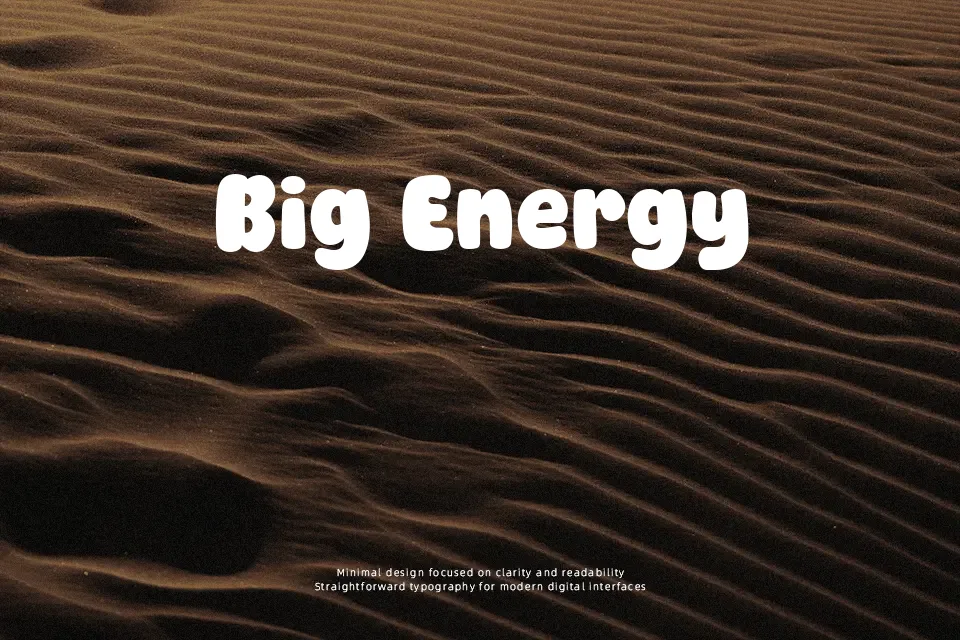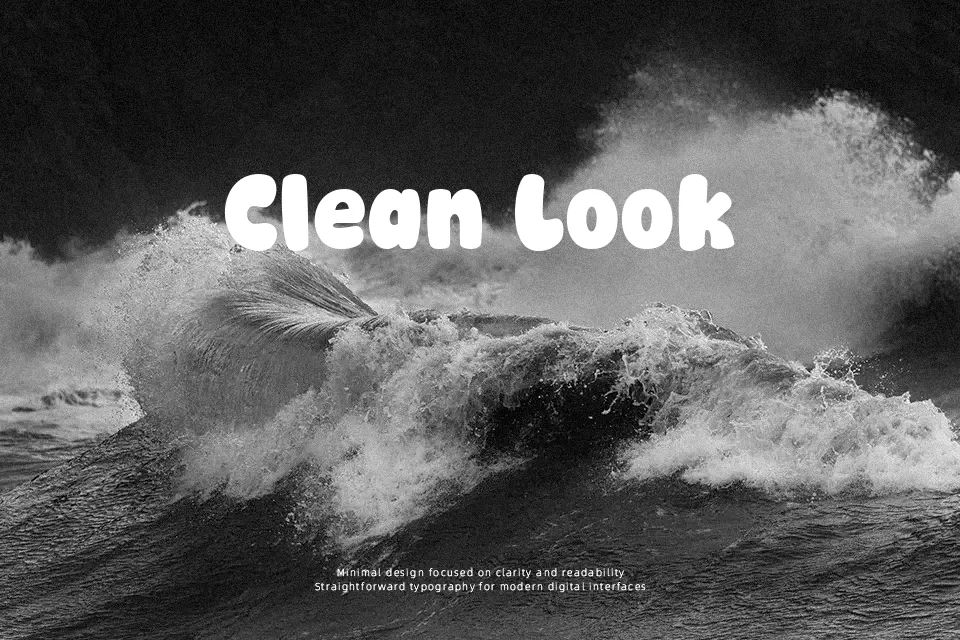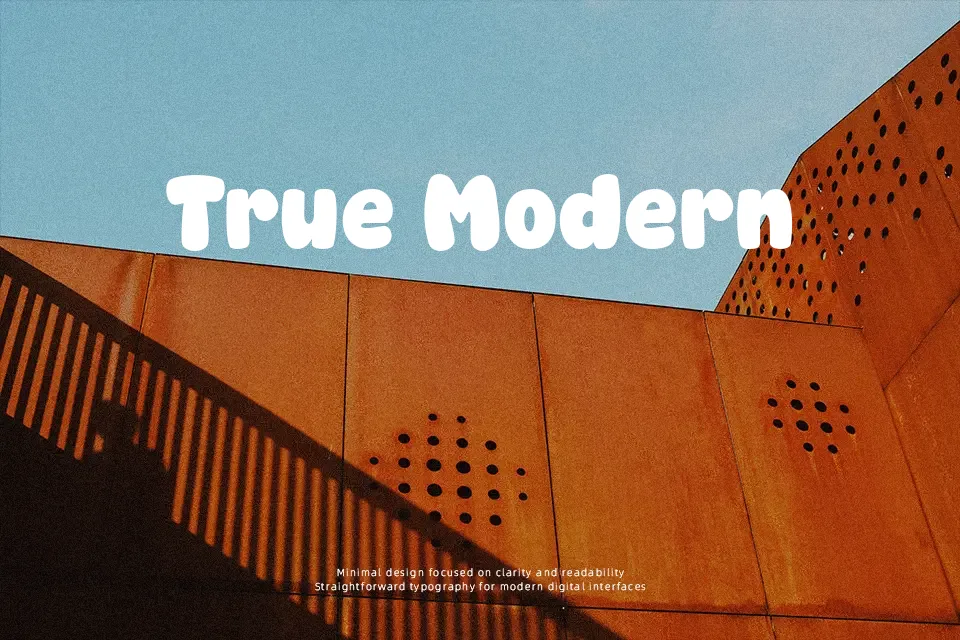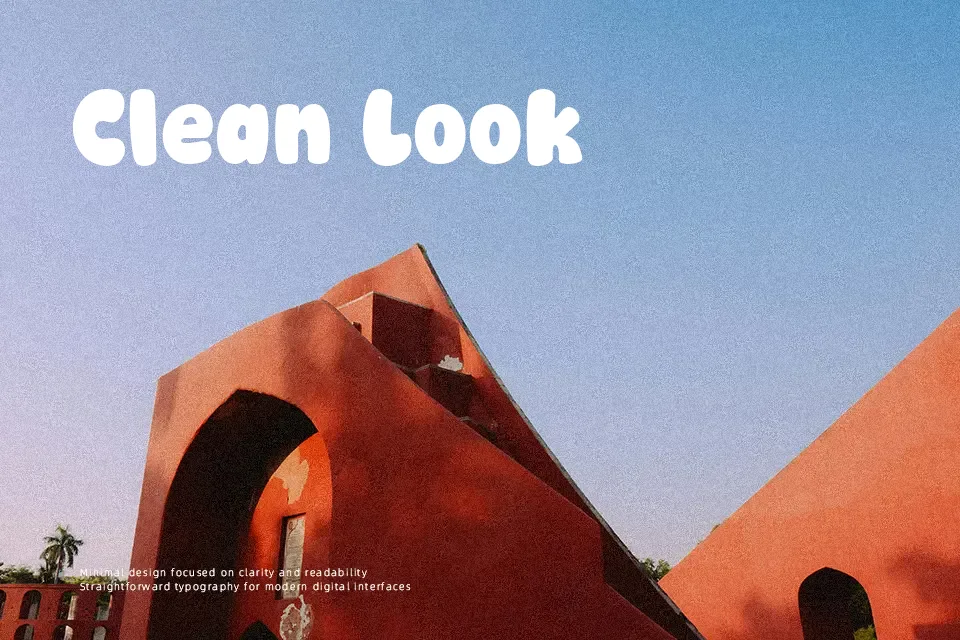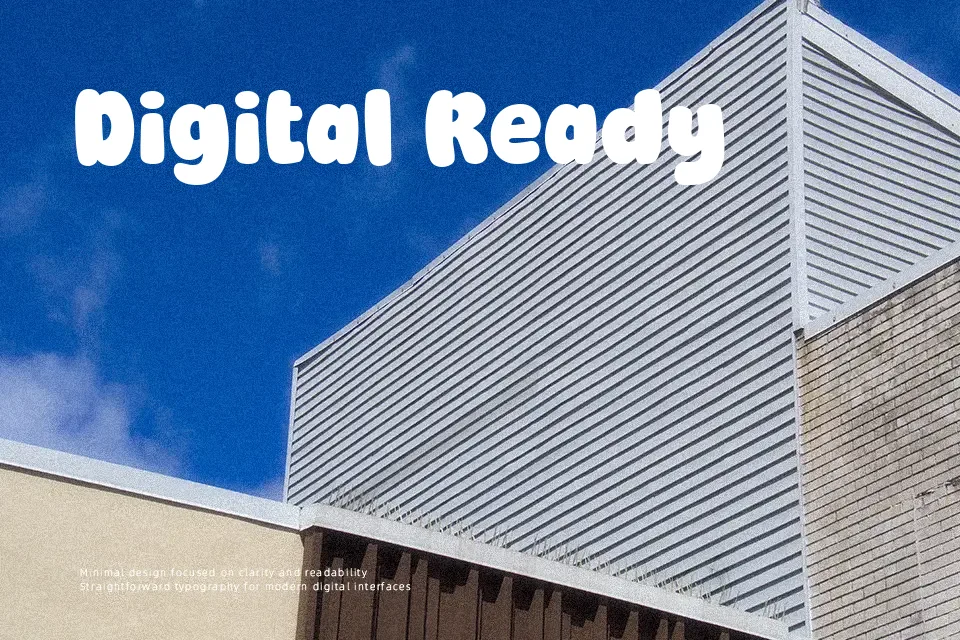
Super Greatly Font
Super Greatly Font uses heavy rounded strokes, inflated proportions, and lively irregular contours that give short words a friendly cartoon presence. The broad forms and soft terminals keep individual letters noticeable in large display settings, while the spacing leaves enough separation for headlines and simple labels. Its uppercase and lowercase characters feel visually weighty rather than restrained, making it practical for children’s graphics, party designs, and expressive promotional titles. The design is easiest to read when used large and with limited wording. Dense text blocks, compact captions, and information-heavy layouts become less comfortable because the thick decorative shapes occupy substantial space.
Best For: kids party invitations,children’s poster headlines,playful product packaging,social media graphics